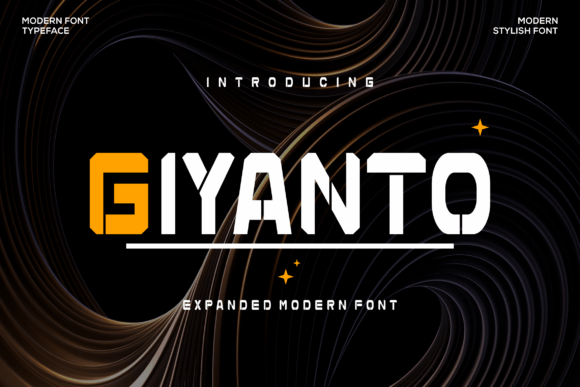
A New Era in Typography: Introducing Giyanto Font
As designers, we’ve all been there – staring at a blank canvas, searching for the perfect font to bring our creative vision to life. The frustration of scrolling through endless options, only to settle for something ‘good enough’, can be overwhelming. But what if I told you there’s a font that can elevate your designs, making them truly unforgettable?
Meet Giyanto Font – a bold and authentic display font that’s perfect for any branding project. From logos to t-shirt printing, this extraordinary font is sure to make your designs stand out in a crowded market. With Giyanto Font, you’ll be able to add a touch of sophistication and style to your work, making it a valuable addition to any designer’s toolkit.
Giyanto Font Key Features
- Font Family: Giyanto Font is a sans-serif font family, specifically designed for digital media.
- Character Count: The font family consists of a large character set, including uppercase and lowercase letters, numerals, and various punctuation marks.
- Unique Characteristics: Giyanto Font features a clean and modern design, with distinctive letterforms and a subtle x-height, making it suitable for a wide range of applications, including digital signage, web design, and print materials.
Giyanto Font Review
I recently had the chance to work with the Giyanto Font, and I must say it’s a unique and interesting typeface. Here are some of its strengths and weaknesses.
- Unique design: Giyanto Font has a distinctive look that sets it apart from more traditional sans-serif fonts.
- Good for creative projects: Its quirky feel makes it perfect for projects that require a bit of flair, such as advertising or branding.
- Easy to read: Despite its unconventional design, Giyanto Font is still relatively easy to read, making it a great choice for body text.
- Limited versatility: Giyanto Font may not be the best choice for more formal or traditional projects, such as academic or business writing.
- Not suitable for large blocks of text: The font’s unique design can become overwhelming if used for extended periods, so it’s best used in moderation.
- No language support: Giyanto Font may not support certain languages, so be sure to check compatibility before using it for international projects.
Giyanto Font is a great choice for designers looking to add a bit of personality to their projects. While it may not be suitable for every type of project, its unique design and easy readability make it a valuable addition to any font collection.
Tips for Getting the Most Out of Giyanto Font
To get the most out of Giyanto Font, try pairing it with other elegant fonts and use it for headings or titles. You can also adjust the font size and color to match your design’s theme.
Giyanto Font is commonly used for wedding invitations, event promotions, and branding materials. Its elegant and sophisticated design makes it perfect for formal events and high-end businesses.